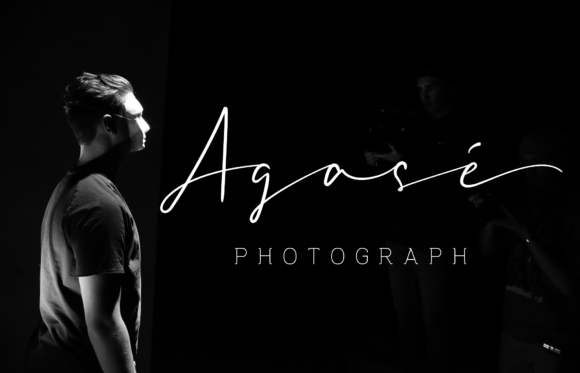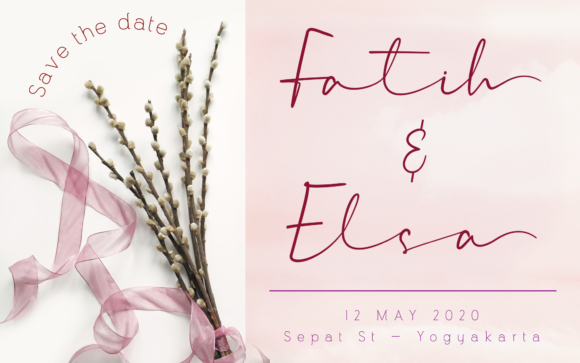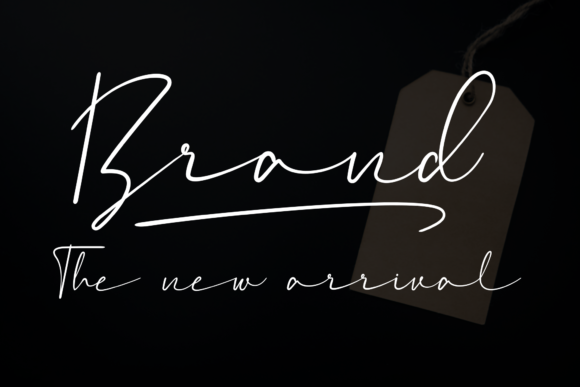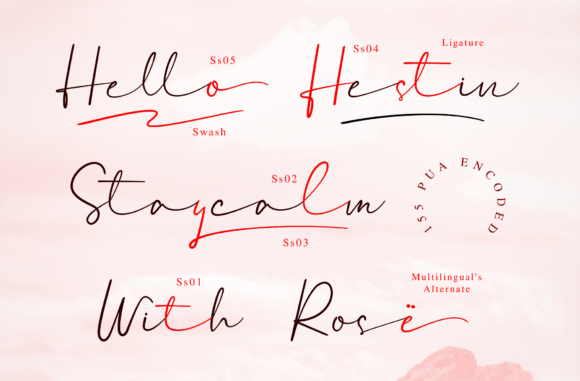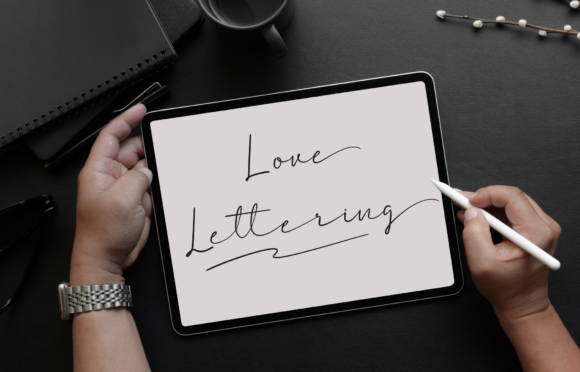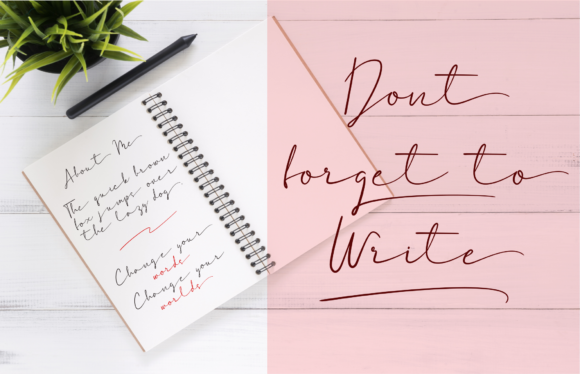
Introducing Coolesta Font: Elevate Your Designs with Elegance and Modernity
In the world of typography, fonts play a crucial role in bringing designs to life. For designers and crafters looking for a touch of elegance and modernity, Coolesta Font is an excellent choice. This stunning handwritten font combines classic calligraphic influences with a contemporary twist, making it perfect for a wide range of design projects.
What Makes Coolesta Font Stand Out?
Coolesta Font is an elegant and modern style font that exudes sophistication and freshness. Its unique blend of traditional calligraphy and modern design elements makes it a versatile choice for various design applications. Whether you’re working on a logo, branding materials, social media graphics, or craft projects, Coolesta Font is sure to make a lasting impression.
Key Features of Coolesta Font
- Elegant and Modern Style: Coolesta Font boasts a sleek and contemporary design that will elevate your projects with a touch of sophistication.
- Calligraphic Influences: This font maintains its classy calligraphic roots, adding a level of refinement and luxury to your designs.
- Handwritten Feel: Despite its elegance, Coolesta Font still feels approachable and personal, thanks to its handwritten origins.
- Versatility: Use Coolesta Font across various design projects, from digital graphics to print materials, and watch your designs come to life.
Coolesta Font is an excellent addition to any designer’s or crafter’s toolkit. Its unique style and versatility make it suitable for a wide range of projects, including:
- Logo Design: Create stunning logos that exude elegance and sophistication.
- Branding Materials: Develop a consistent brand identity with Coolesta Font’s help.
- Social Media Graphics: Elevate your social media presence with eye-catching graphics featuring Coolesta Font.
- Craft Projects: Add a personal touch to your craft projects, such as handmade cards, invitations, or DIY decor.
Tips for Using Coolesta Font Effectively
To get the most out of Coolesta Font, consider the following tips:
- Pair with Neutral Backgrounds: Allow Coolesta Font to take center stage by pairing it with neutral backgrounds.
- Experiment with Colors: Try out different color schemes to find the perfect match for your design.
- Play with Sizes: Use varying font sizes to create visual interest and hierarchy in your designs.
Coolesta Font is an exceptional choice for designers and crafters seeking to add a touch of elegance and modernity to their projects. With its unique blend of calligraphic influences and contemporary design elements, this gorgeous handwritten font is sure to bring any design to life. Try Coolesta Font today and experience the difference it can make in your designs!
Use this gorgeous handwritten font to bring any design to life!